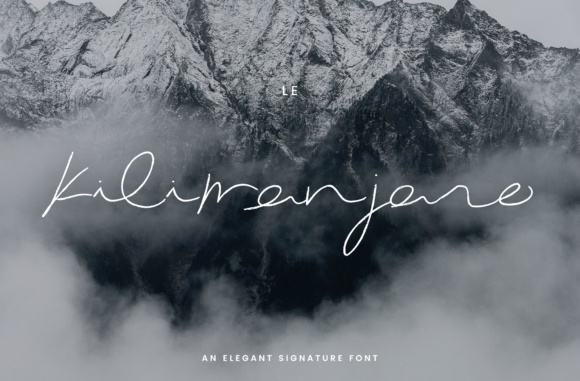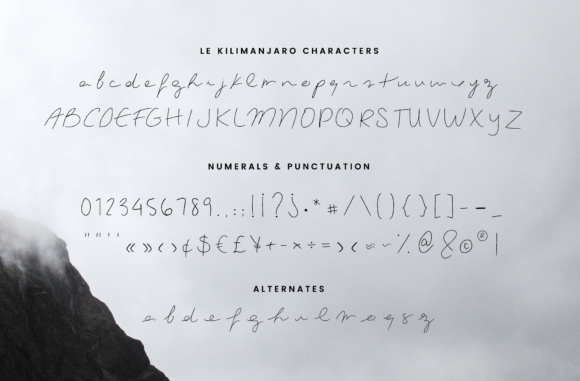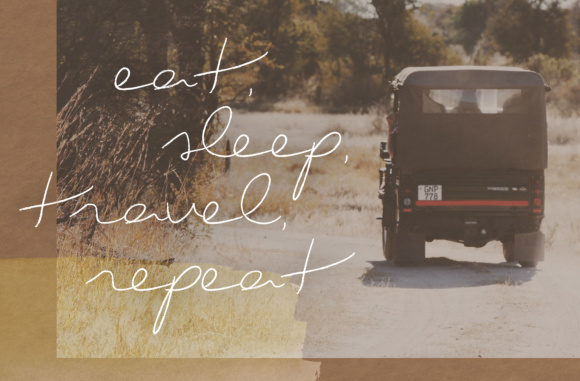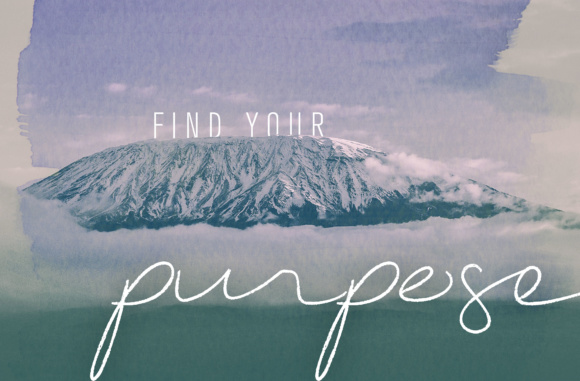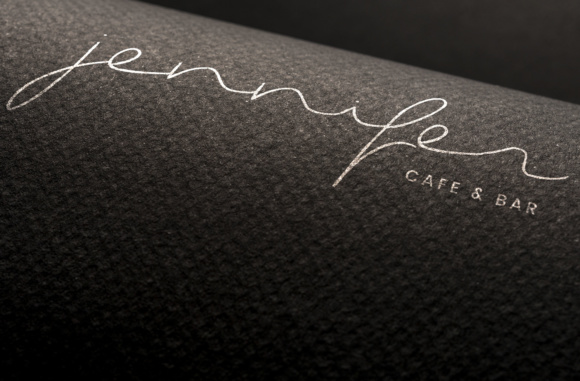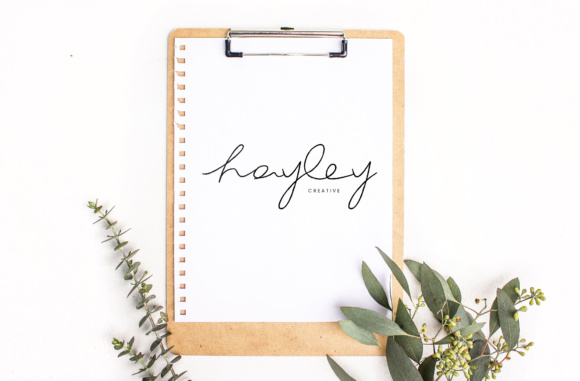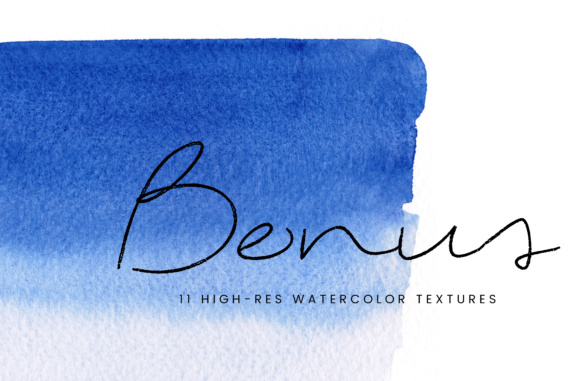
Le Kilimanjaro Font
About Le Kilimanjaro Font
Le Kilimanjaro is an elegant handwritten script for any of your design needs. A delicate signature font with a brush texture that will add class and personality to your work.